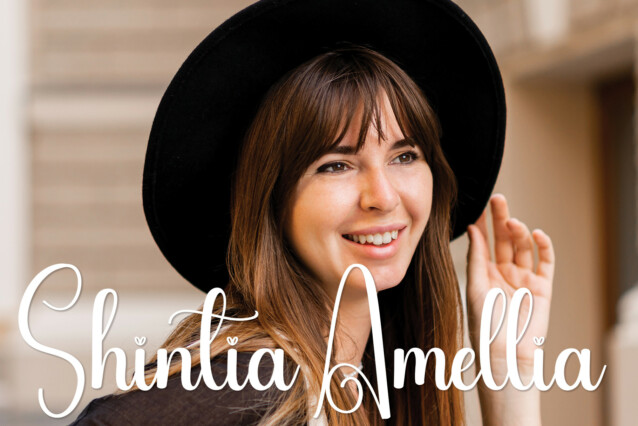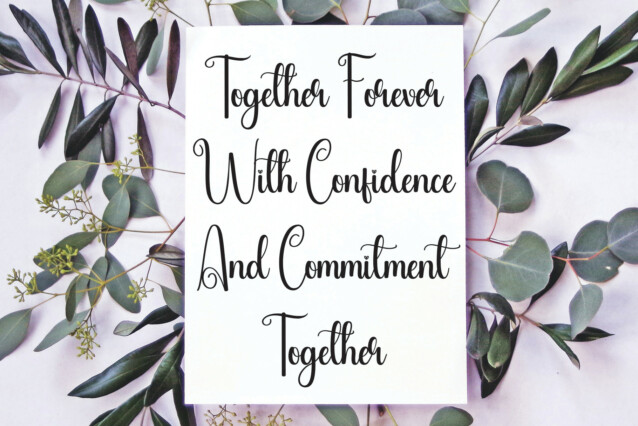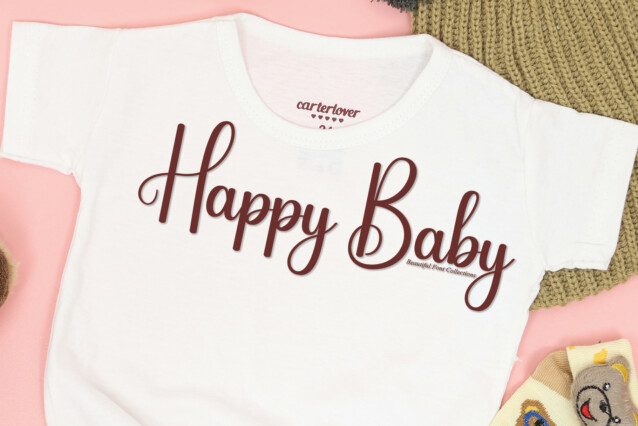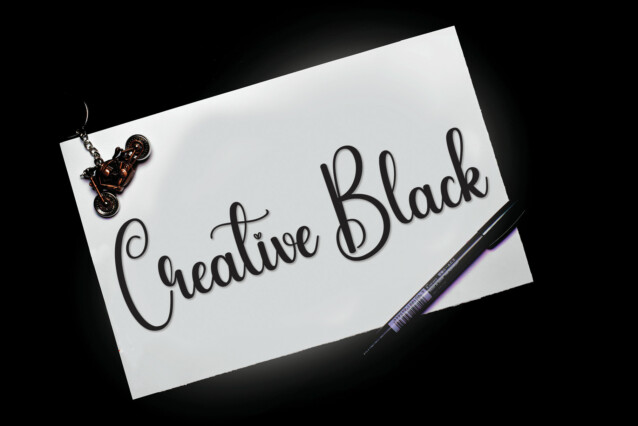
Cafe Friday Script Font
Cafe Friday Script Font is a sweet and friendly handwritten font. Its natural and unique style makes it incredibly fitting to a large pool of designs. The only limit is your imagination!